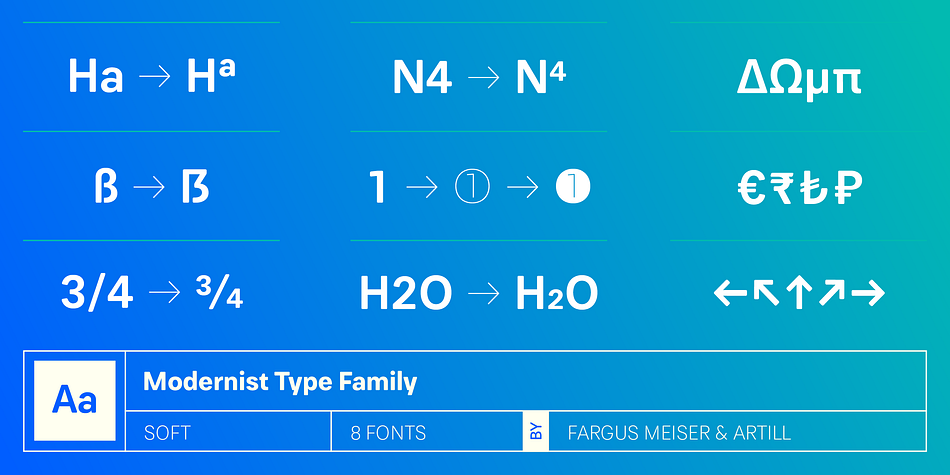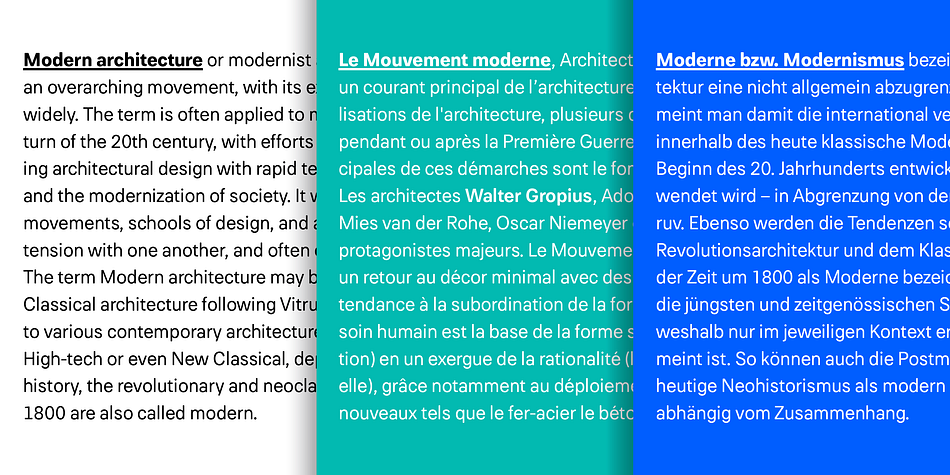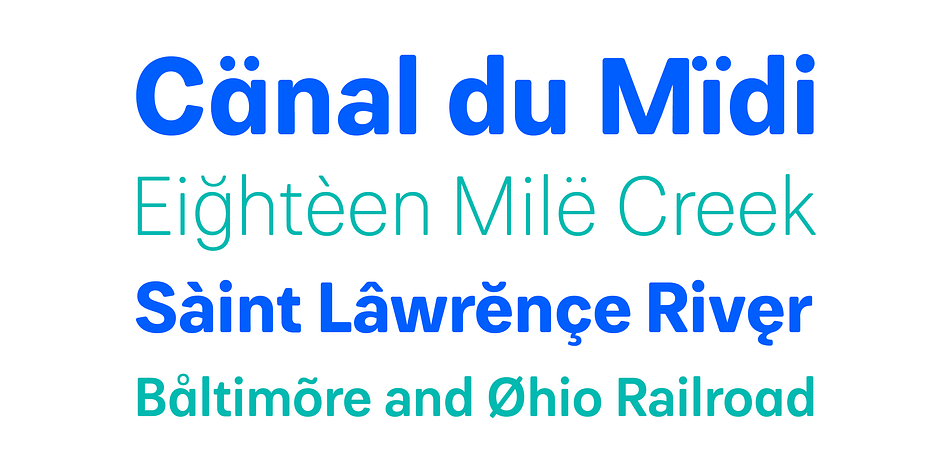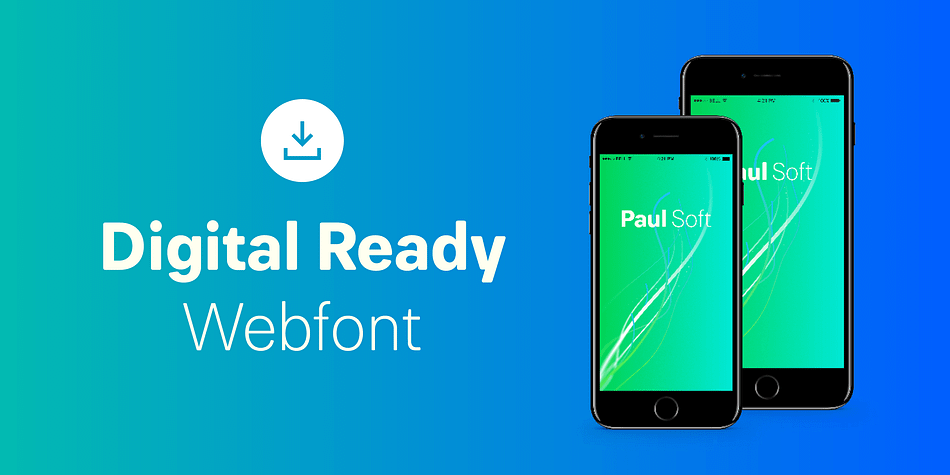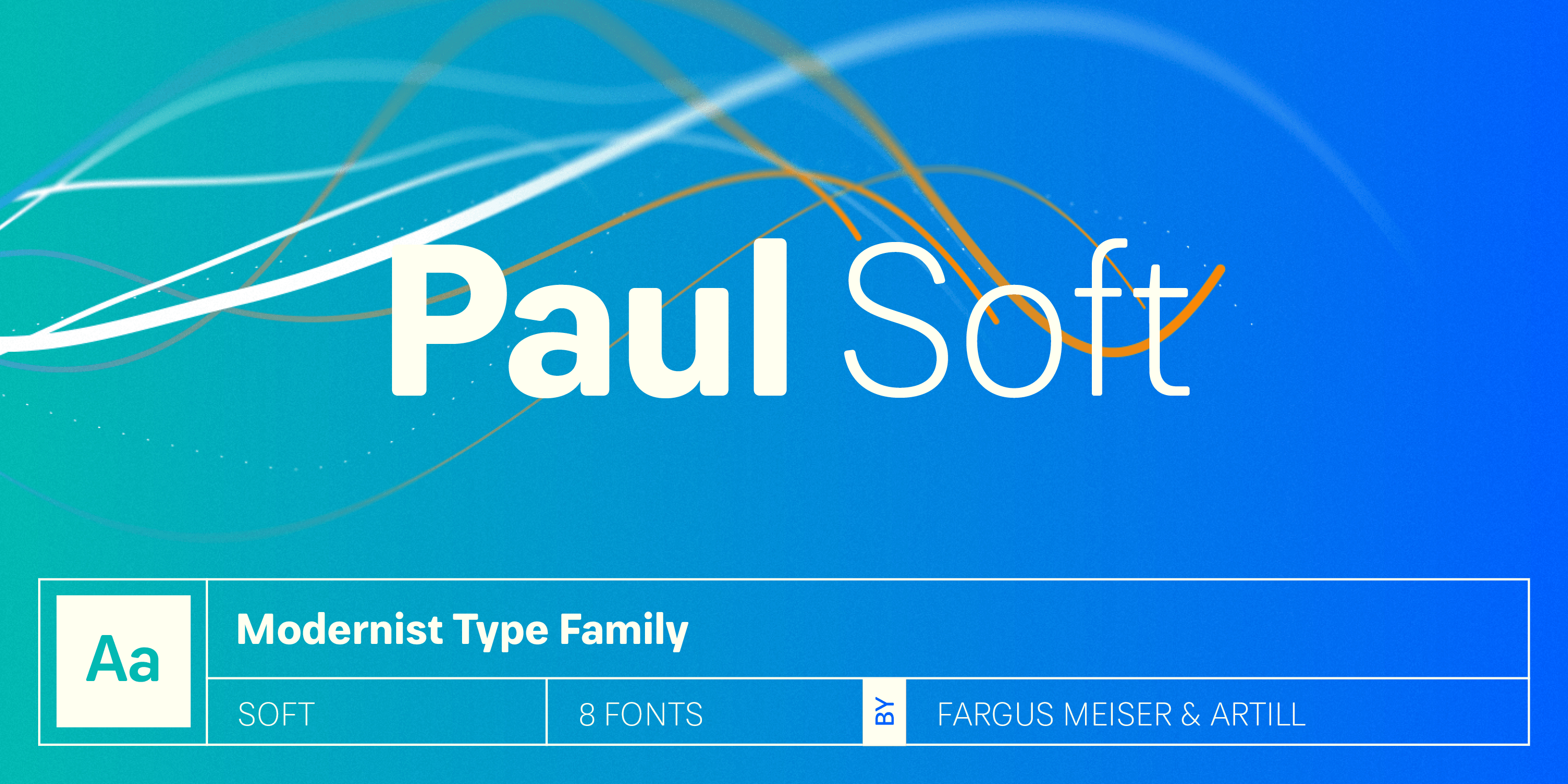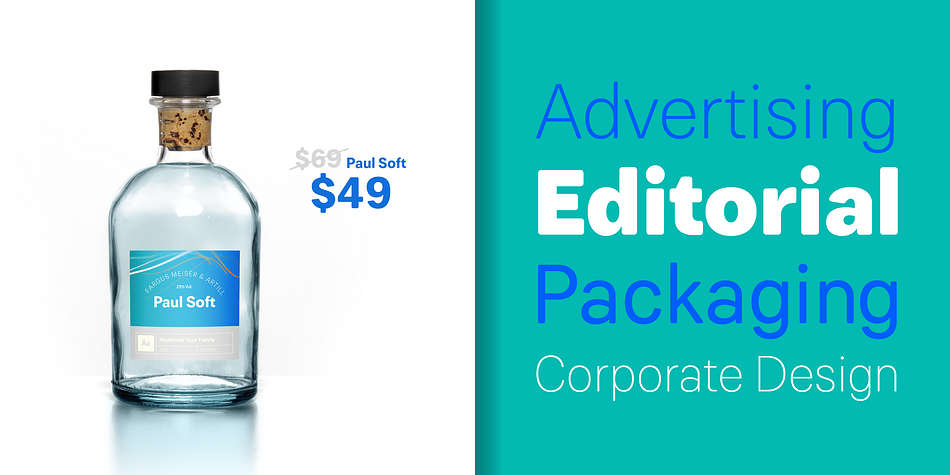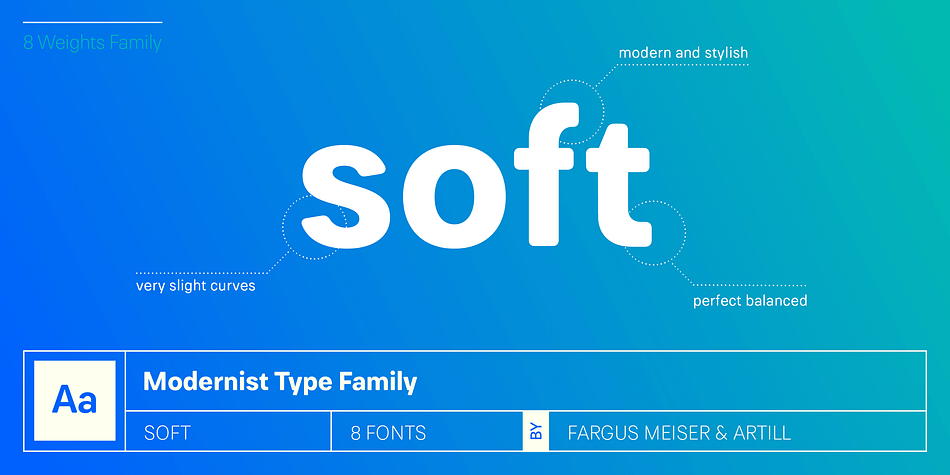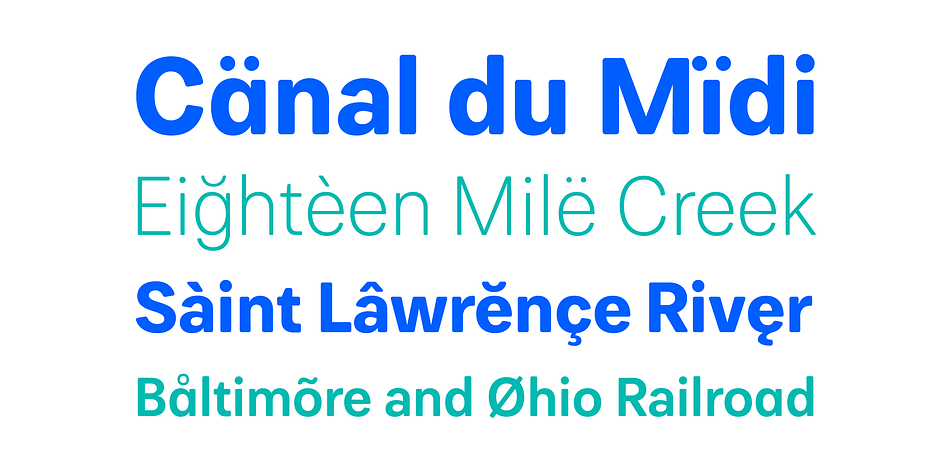
Designed by Fargus Meiser, Paul Grotesk Soft is a sans serif font family. This typeface has eight styles and was published by Artill Typs.
The new Font “Paul Grotesk Soft” is a modern, clean, minimalist grotesque typeface with delicious detail and soft corner. Created and published in collaboration by Fargus Meiser and Lukas Bischoff.
It comes in 8 stylish weights and 3 are free to try. Designed with powerful opentype features in mind. Each weight includes extended language support, fractions, arrows, special numbers and more. It fits perfect for graphic design, editorial, corporate and any display use. Also check the webfont to create a nice responsive interface design!